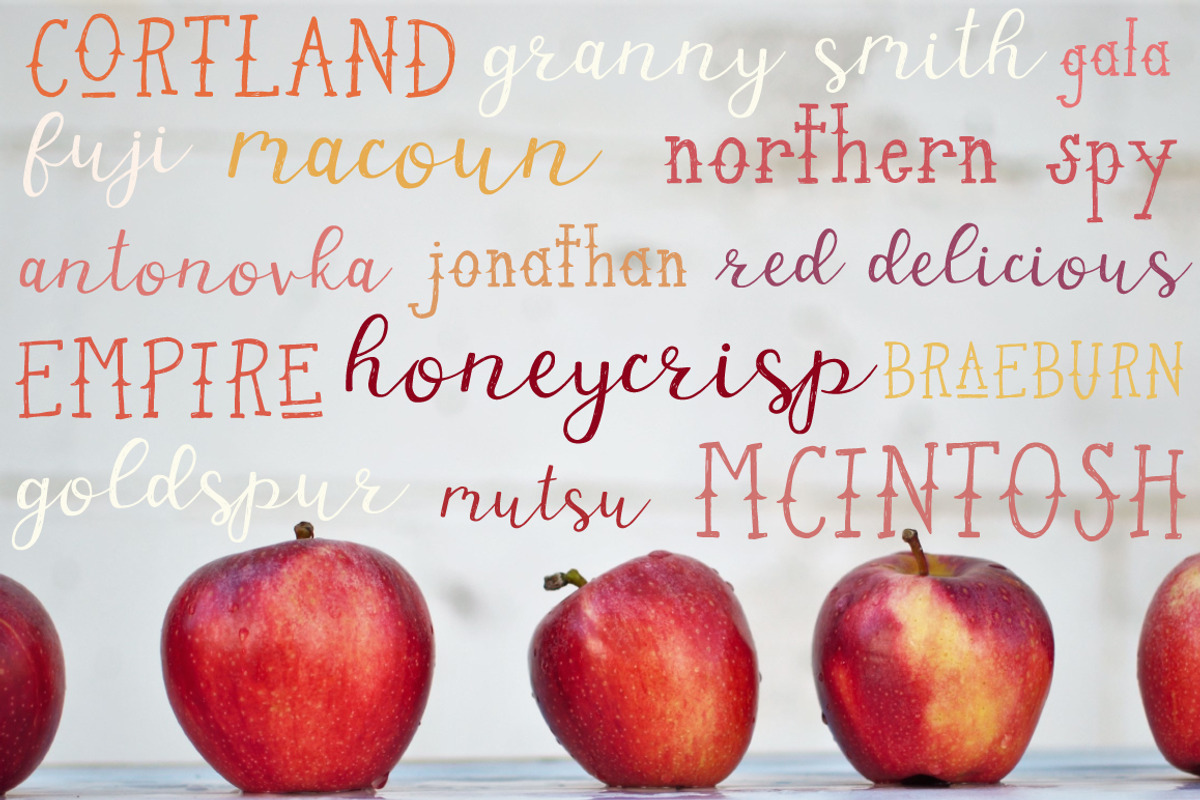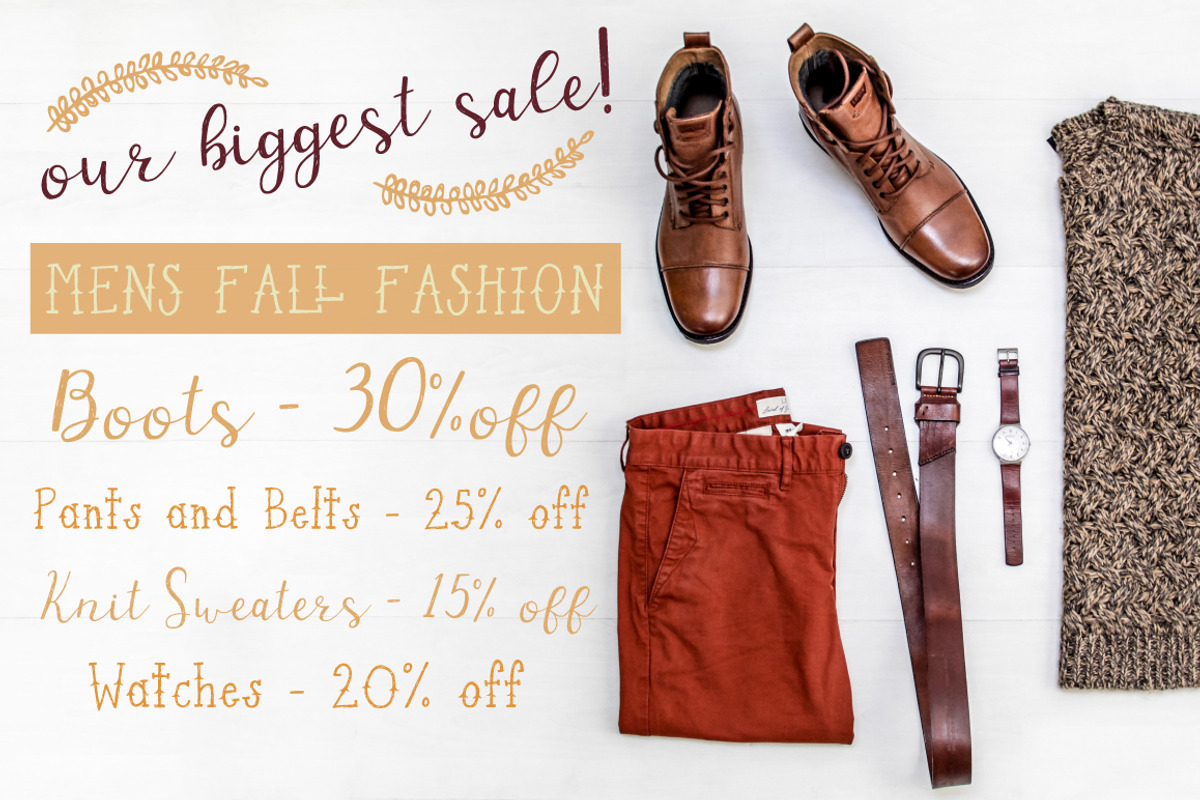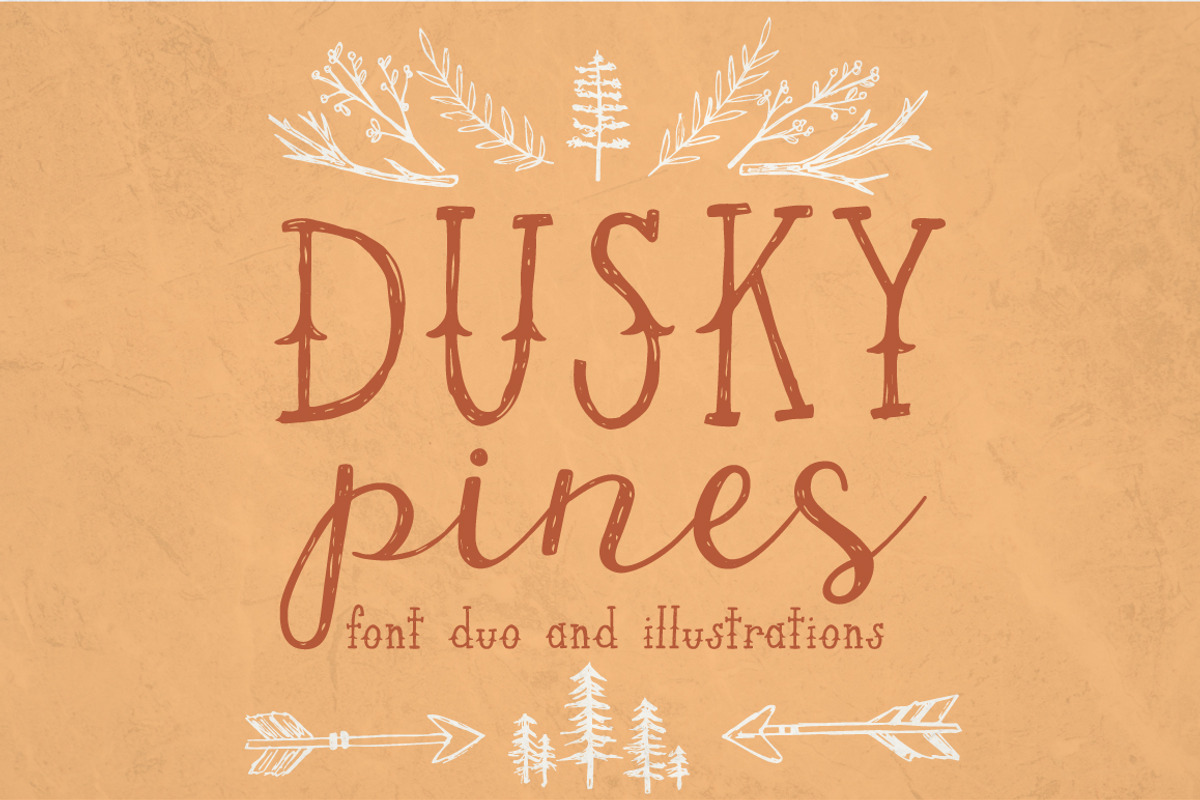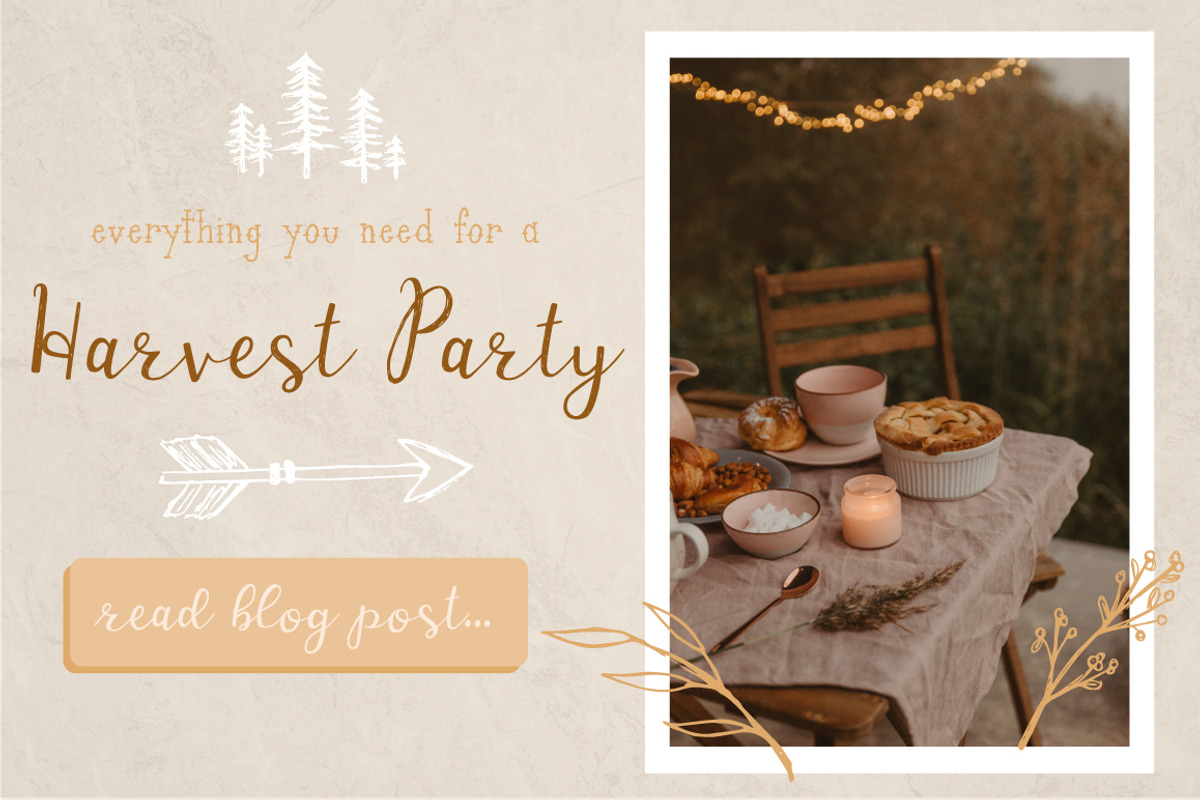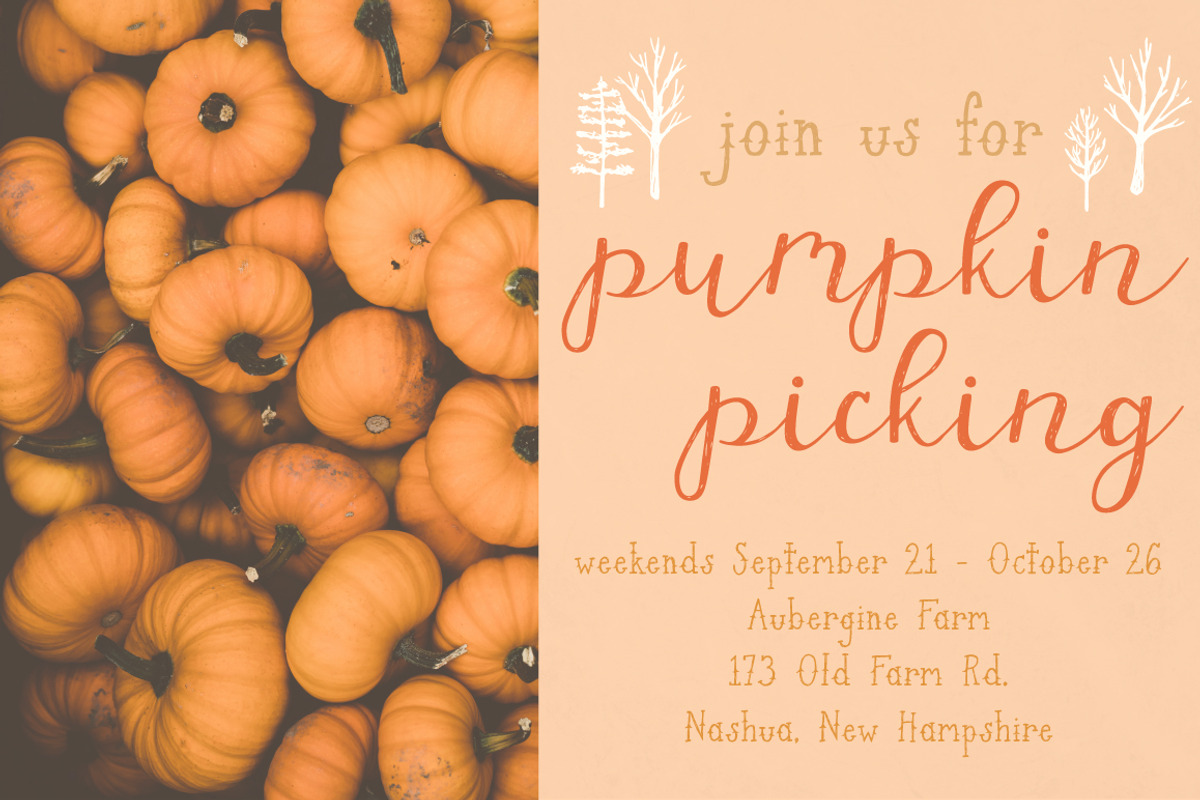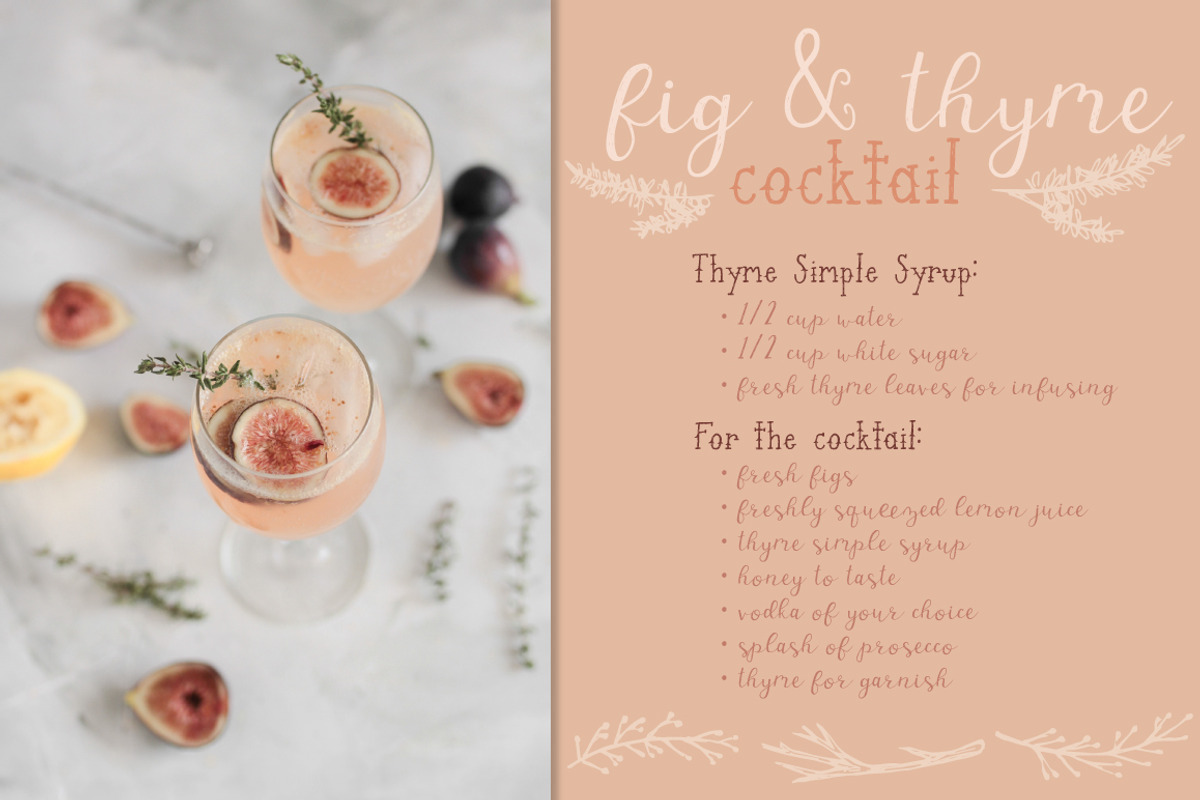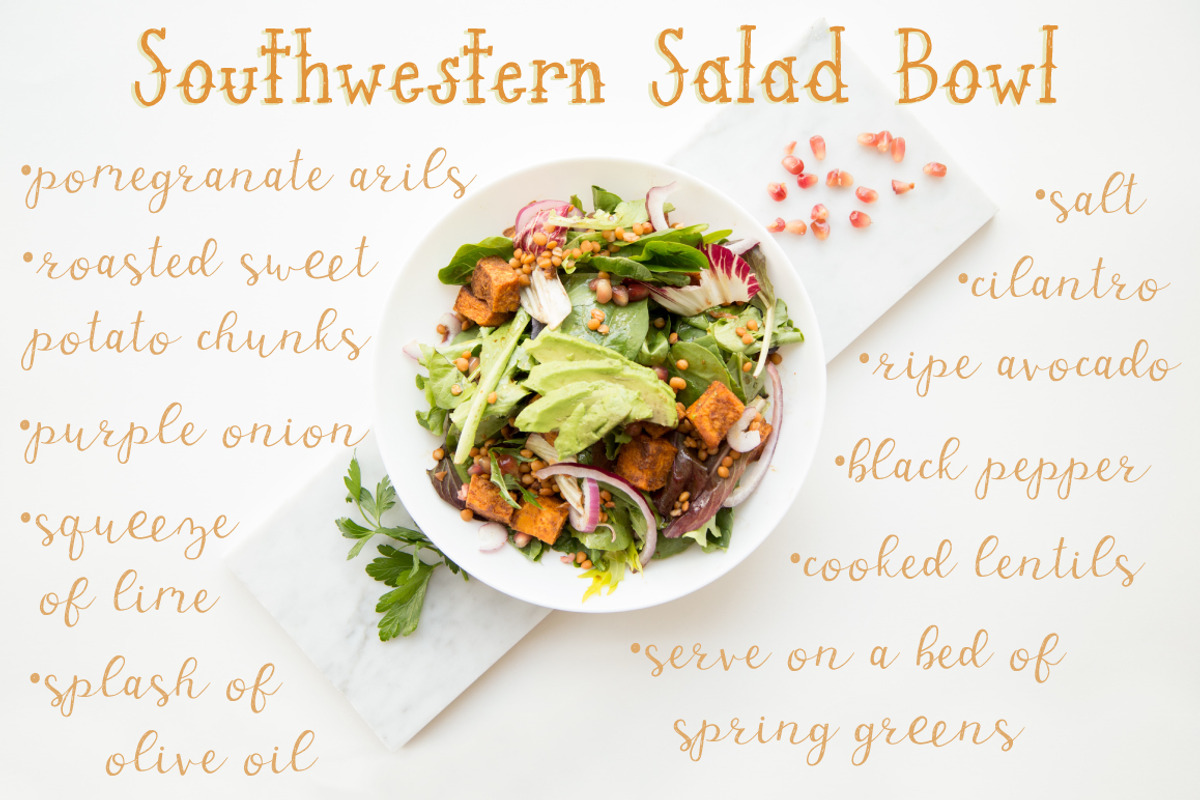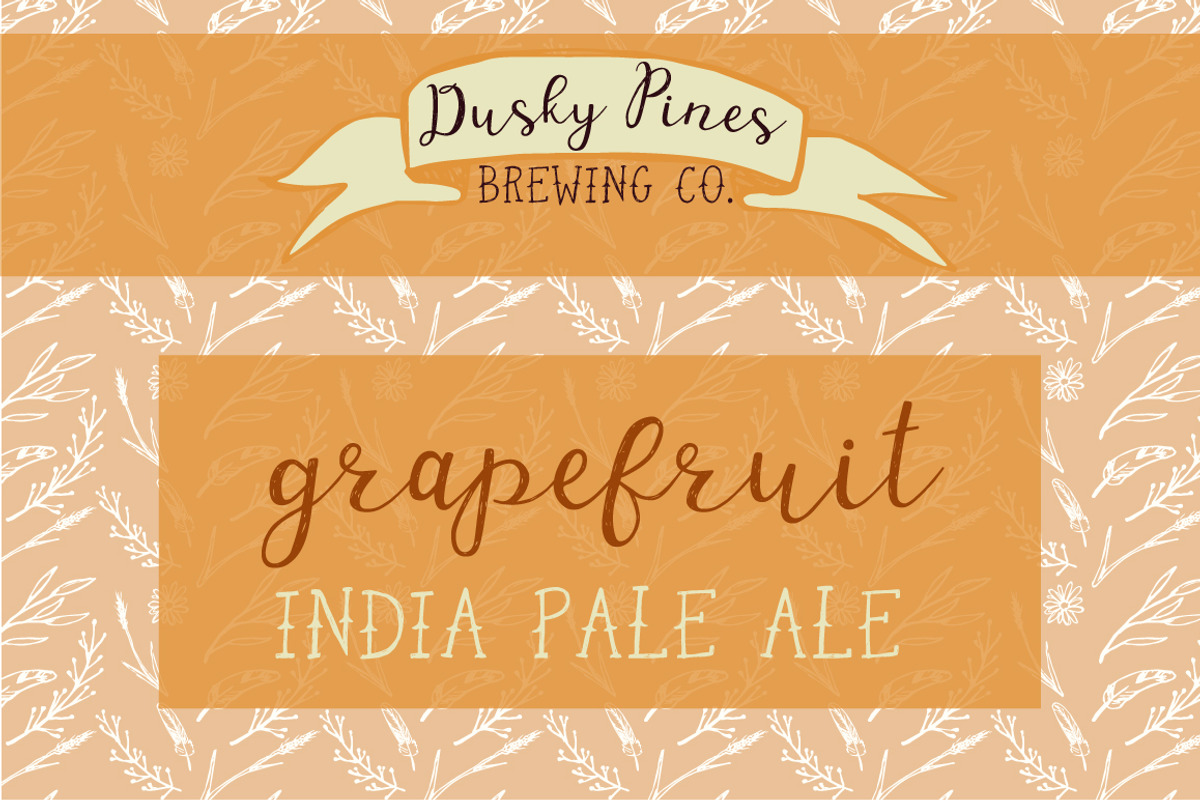
Dusky Pines Font Duo + Illustrations
Dusky Pines is a rustic, handwritten font duo featuring a western inspired serif font and a sweet script font. The letters have a quirkiness that will lend fun to any project whether it is a blog post, magazine layout, invitation, product label, or more!
Dusky Pines was inspired by the feeling of autumn at the valley of a pine covered mountain, the sight of leaves changing from green to orange and red, and the smell of a campfire late at night.